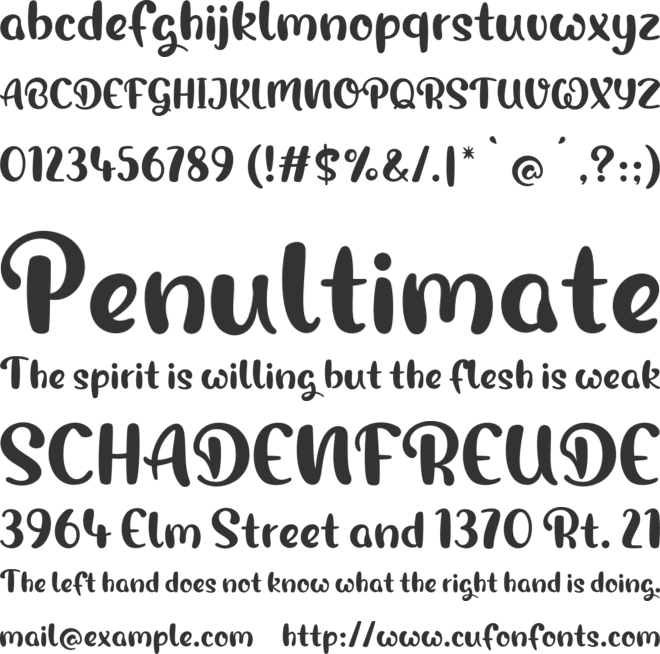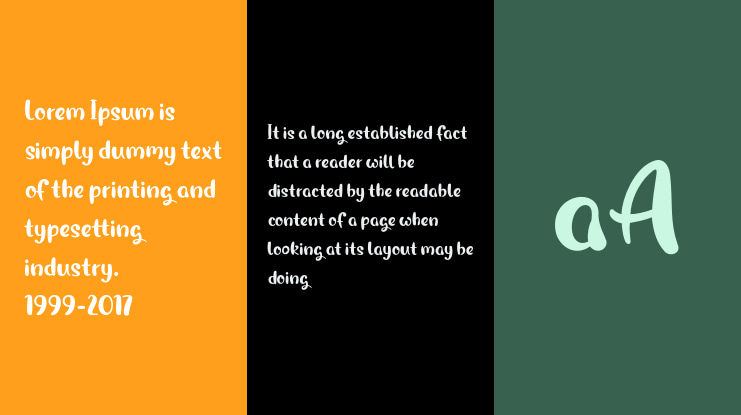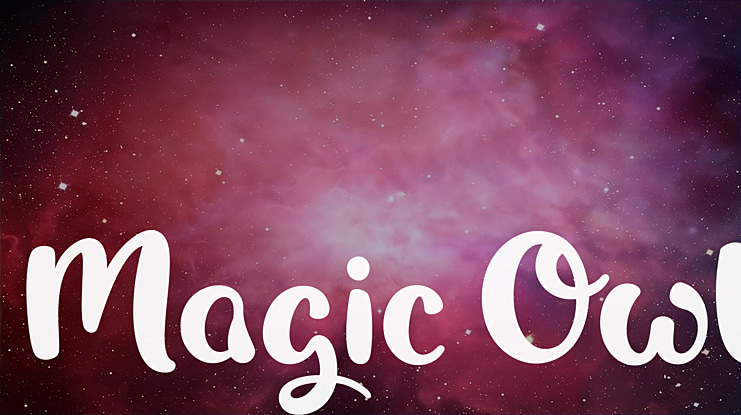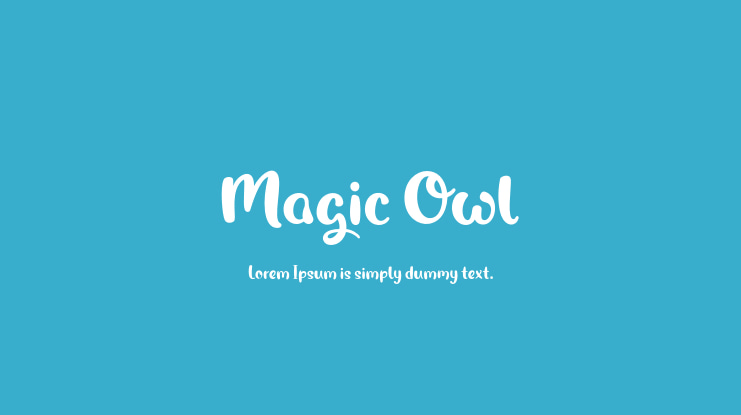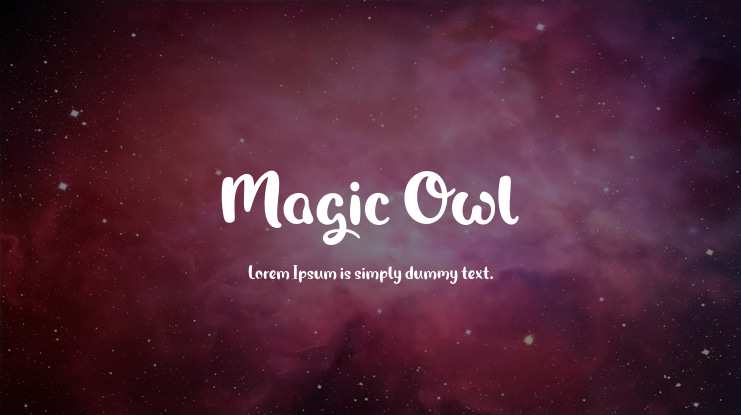
Magic Owl Font
For everyone who needs a little bit of Magic in their life right now: Get enchanted by “Magic Owl”, a playful handcrafted premium font with a lot of unique twists and turns. This time we’re also sharing the font in Its FULL form. No demo, no missing glyphs - this freebie includes numbers, symbols, special characters and language support for most latin based languages. But that’s not all: ligatures and alternate Glyphs will magically appear while typing to give the font a realistic handwritten nature.